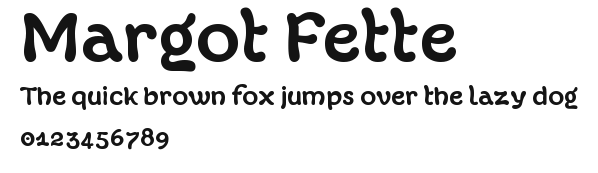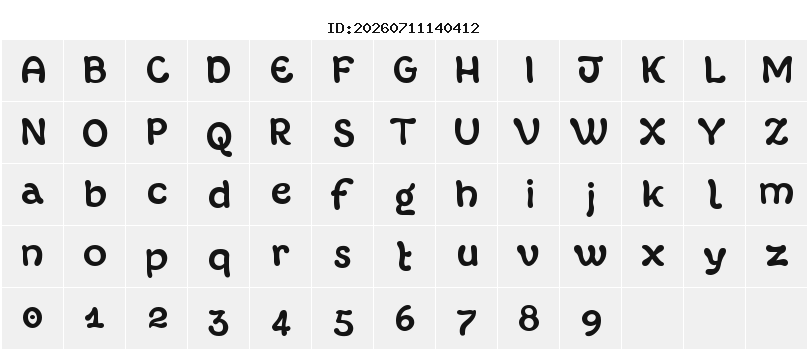
• Font Name: Margot Fette
• Designer: Lauren Thompson
About Margot Fette.ttf
Margot Fette.ttf is a modern, elegant sans-serif font designed for ultimate readability and visual harmony. Perfect for branding, headlines, web design, and print materials.